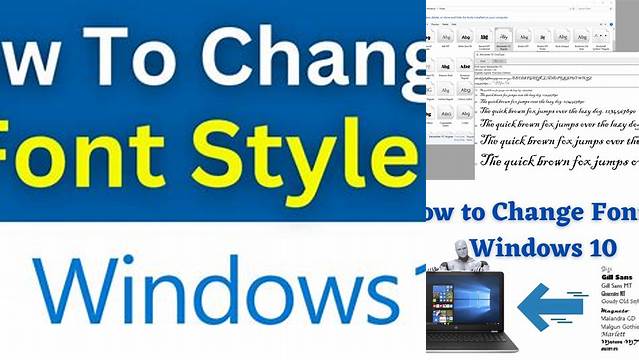
Change Font On Windows 10: A Complete Guide
Hey guys! Ever felt like your Windows 10 fonts are a bit… meh? You're not alone! Customizing your fonts can totally transform your computing experience, making everything from documents to websites look just the way you want. In this guide, we'll dive deep into how you can change fonts on Windows 10, covering everything from system-wide changes to tweaking individual app fonts. So, let's get started and give your Windows 10 a fontastic makeover!
Why Change Fonts on Windows 10?
Before we jump into the "how," let's talk about the "why." Why should you bother changing fonts on Windows 10? Well, there are several compelling reasons:
- Personalization: First and foremost, changing fonts lets you personalize your computer. We all have our favorite fonts, and using them across your system can make your digital environment feel more like you. Think of it as decorating your virtual space!
- Readability: Some fonts are simply easier to read than others. If you spend a lot of time reading on your computer, choosing a font that's easy on the eyes can reduce strain and improve your overall experience. Consider fonts like Calibri, Arial, or Segoe UI for their clarity.
- Accessibility: For users with visual impairments, font customization is crucial. Larger font sizes and specific font styles can significantly improve readability. Windows 10 offers a range of accessibility options, and font customization is a key part of that.
- Aesthetics: Let's face it, some fonts just look better than others! If you're working on a creative project or simply want your computer to look more stylish, changing fonts can make a big difference. A well-chosen font can add a touch of elegance or personality to your desktop.
- Brand Consistency: If you use your computer for work, consistent fonts can help maintain brand identity. Using the same fonts across all your documents and presentations creates a professional and cohesive look.
The Impact of Font Choice on User Experience
The impact of font choice on user experience cannot be overstated. A well-chosen font can enhance readability, reduce eye strain, and improve overall aesthetics. Conversely, a poorly chosen font can lead to frustration, eye fatigue, and a less enjoyable computing experience. When selecting fonts, consider the following factors:
- Readability: The primary consideration should always be readability. Fonts with clear, distinct characters are essential for extended reading sessions. Avoid overly stylized or decorative fonts for body text.
- Legibility: Legibility refers to how easily individual characters can be distinguished from one another. Fonts with good legibility prevent misinterpretation of letters, which is particularly important for critical information.
- Scalability: Ensure the font scales well across different sizes and resolutions. A font that looks great at 12 points may become illegible at smaller sizes, or appear pixelated at larger sizes.
- Style: The style of the font should align with the overall tone and purpose of the content. A formal document may benefit from a classic serif font like Times New Roman, while a more casual project might suit a sans-serif font like Helvetica or Arial.
- Spacing: Proper spacing between letters and words is crucial for readability. Fonts with adequate spacing prevent characters from blending together, making the text easier to scan and comprehend.
By carefully considering these factors, you can select fonts that not only look aesthetically pleasing but also enhance the user experience and improve communication.
How to Change Default System Fonts on Windows 10
Okay, now for the main event: how do you actually change the default system fonts on Windows 10? While Microsoft doesn't make it super obvious, there's a relatively straightforward way to do it using the Registry Editor. Don't worry, it's not as scary as it sounds! Just follow these steps carefully:
- Open Registry Editor:
- Press the Windows key + R to open the Run dialog box.
- Type
regeditand press Enter. Click Yes if prompted by User Account Control.
- Navigate to the Fonts Key:
- In the Registry Editor, navigate to the following path:
HKEY_LOCAL_MACHINE\SOFTWARE\Microsoft\Windows NT\CurrentVersion\Fonts
- In the Registry Editor, navigate to the following path:
- Identify Default Font Entries:
- In the right pane, you'll see a list of font names and their corresponding font files. These entries dictate the default fonts used by Windows 10 for various UI elements.
- Create a New Key:
- Right-click on the
Fontskey in the left pane. - Select New > Key.
- Name the new key
FontSubstitutes.
- Right-click on the
- Create String Values:
- Select the
FontSubstituteskey you just created. - In the right pane, right-click and select New > String Value.
- You'll need to create string values for the fonts you want to change. Here are some common ones:
So, there you have it! Changing fonts on Windows 10 is a fantastic way to personalize your computer and improve your overall experience. Whether you're tweaking the default system fonts, customizing fonts in specific apps, or installing new fonts, the possibilities are endless. Just remember to proceed carefully, especially when using the Registry Editor, and always back up your system before making significant changes.